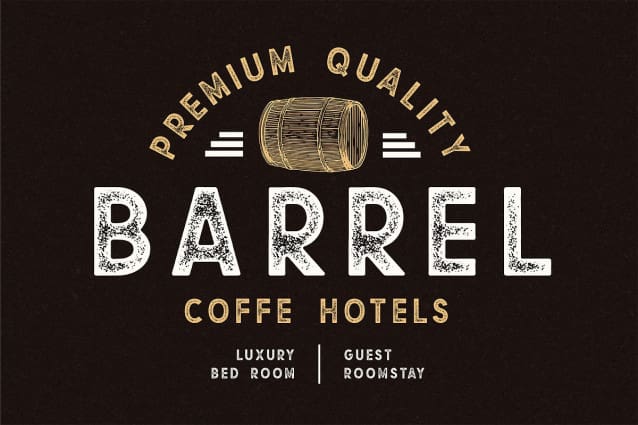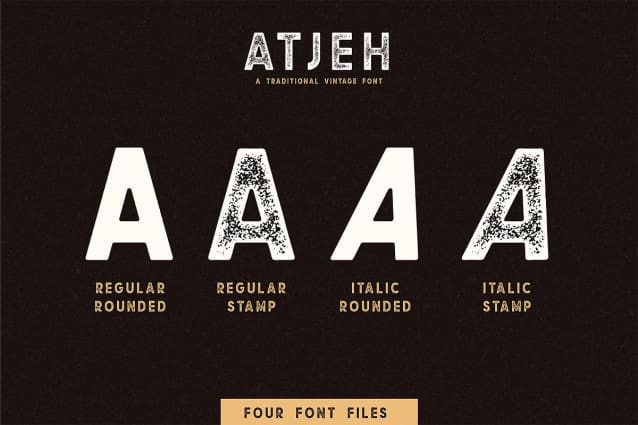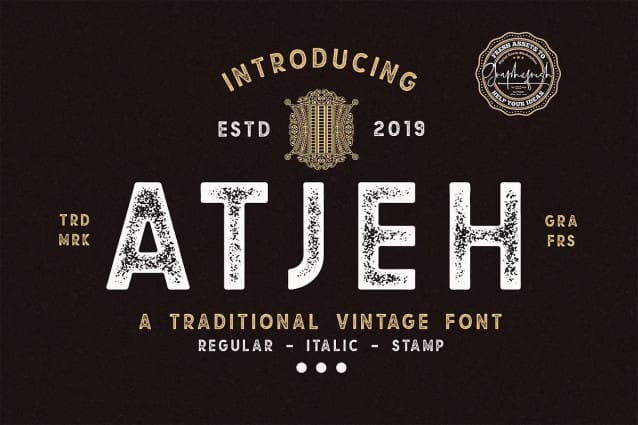
Atjeh Font
Atjeh Font is a traditional vintage display family including Regular and Textured versions as well as Italic versions of each. it’s perfect for logos, name card, magazine layouts, invitations, headers, or even large-scale artwork.